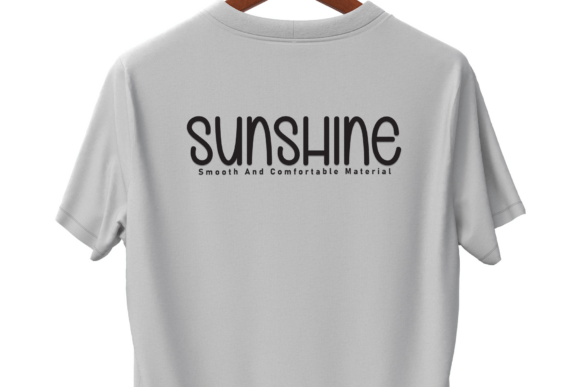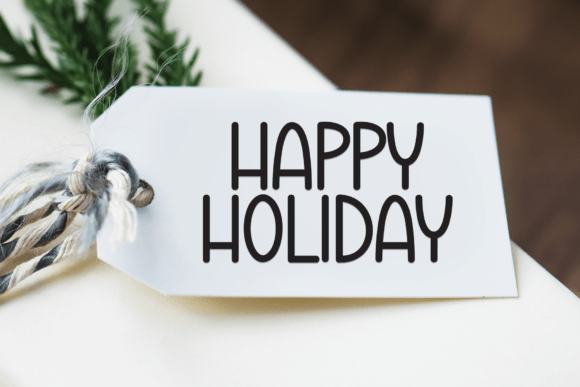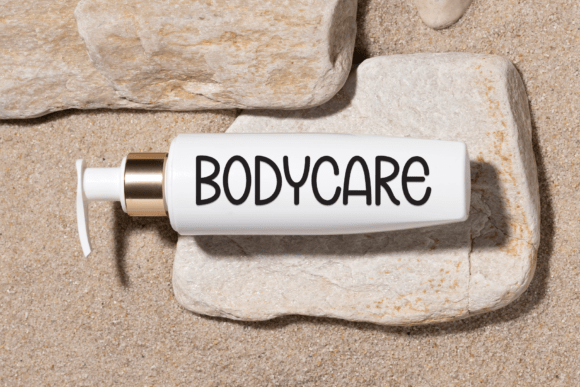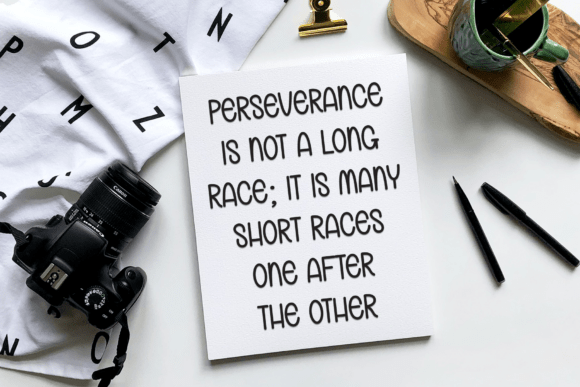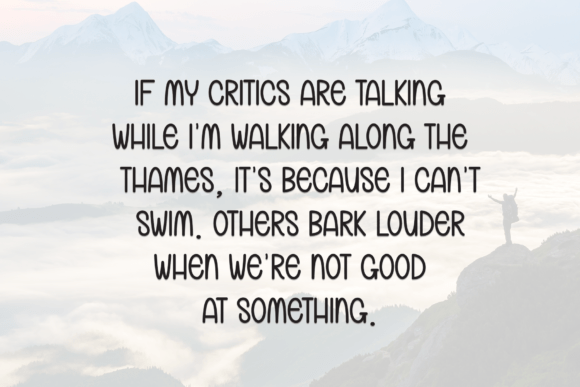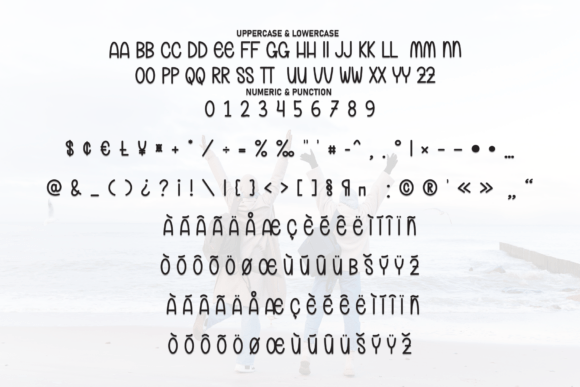
Introducing Happy Vacation: The Ultimate Font for Joyful Designs
Are you tired of using the same old fonts for your designs? Do you want to add a touch of joy and relaxation to your projects? Look no further than Happy Vacation, a cheerful and clean handmade font that’s perfect for spreading positive vibes. In this article, we’ll dive into the features and benefits of Happy Vacation, and explore how you can use it to elevate your designs.
The Perfect Font for Travel and Summer-Themed Designs
Happy Vacation is a font that’s specifically designed to evoke the feeling of a relaxing vacation. Its rounded, friendly letterforms are perfect for travel blogs, postcards, summer merch, and social media graphics. Whether you’re designing for a holiday promotion or just want to add a lighthearted touch to your project, Happy Vacation is the ideal choice.
Imagine using Happy Vacation to create eye-catching headlines for your travel blog, or to add a playful touch to your summer-themed social media graphics. The font’s cheerful and clean design makes it perfect for a wide range of applications, from kids’ projects to adult-oriented designs.
What Makes Happy Vacation So Special?
So, what sets Happy Vacation apart from other fonts? Here are just a few features that make it so special:
- Handmade with love: Happy Vacation is a handmade font that’s been crafted with care and attention to detail. Each letterform has been carefully designed to be both cheerful and clean, making it perfect for a wide range of applications.
- Rounded and friendly: The rounded, friendly letterforms of Happy Vacation make it perfect for designs that need a lighthearted, fun-loving touch. Whether you’re designing for kids or adults, this font is sure to bring a smile to their faces.
- Perfect for digital and print designs: Happy Vacation is a versatile font that can be used for both digital and print designs. Whether you’re creating social media graphics, blog posts, or print materials like postcards and flyers, this font is sure to look great.
How to Use Happy Vacation in Your Designs
Now that we’ve explored the features and benefits of Happy Vacation, let’s talk about how you can use it in your designs. Here are a few ideas to get you started:
- Travel blogs and websites: Use Happy Vacation to create eye-catching headlines and section titles for your travel blog or website. The font’s cheerful and clean design makes it perfect for showcasing your travel photos and stories.
- Summer-themed social media graphics: Add a playful touch to your summer-themed social media graphics with Happy Vacation. The font’s rounded and friendly letterforms make it perfect for creating fun and engaging graphics that will stand out on social media.
- Kids’ projects and crafts: Happy Vacation is a great font for kids’ projects and crafts. Use it to create fun and colorful titles and headings for your kids’ artwork, or to add a playful touch to your kids’ party invitations.
- Holiday promotions and designs: Use Happy Vacation to add a lighthearted and fun-loving touch to your holiday promotions and designs. The font’s cheerful and clean design makes it perfect for creating eye-catching headlines and graphics for your holiday marketing campaigns.
In conclusion, Happy Vacation is a cheerful and clean handmade font that’s perfect for designers and crafters who want to add a touch of joy and relaxation to their projects. With its rounded, friendly letterforms and versatile design, Happy Vacation is the ideal choice for a wide range of applications, from travel blogs and social media graphics to kids’ projects and holiday promotions.